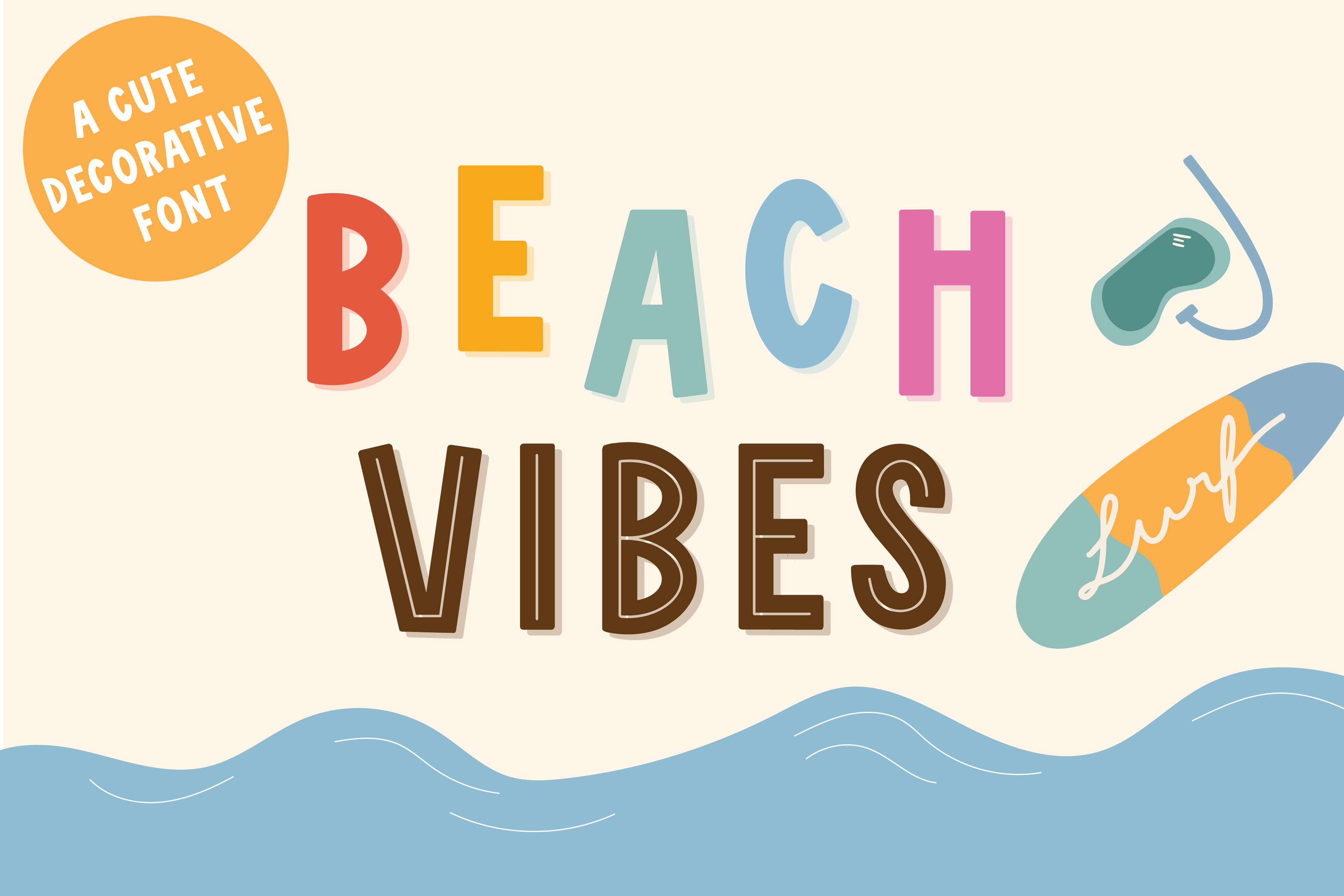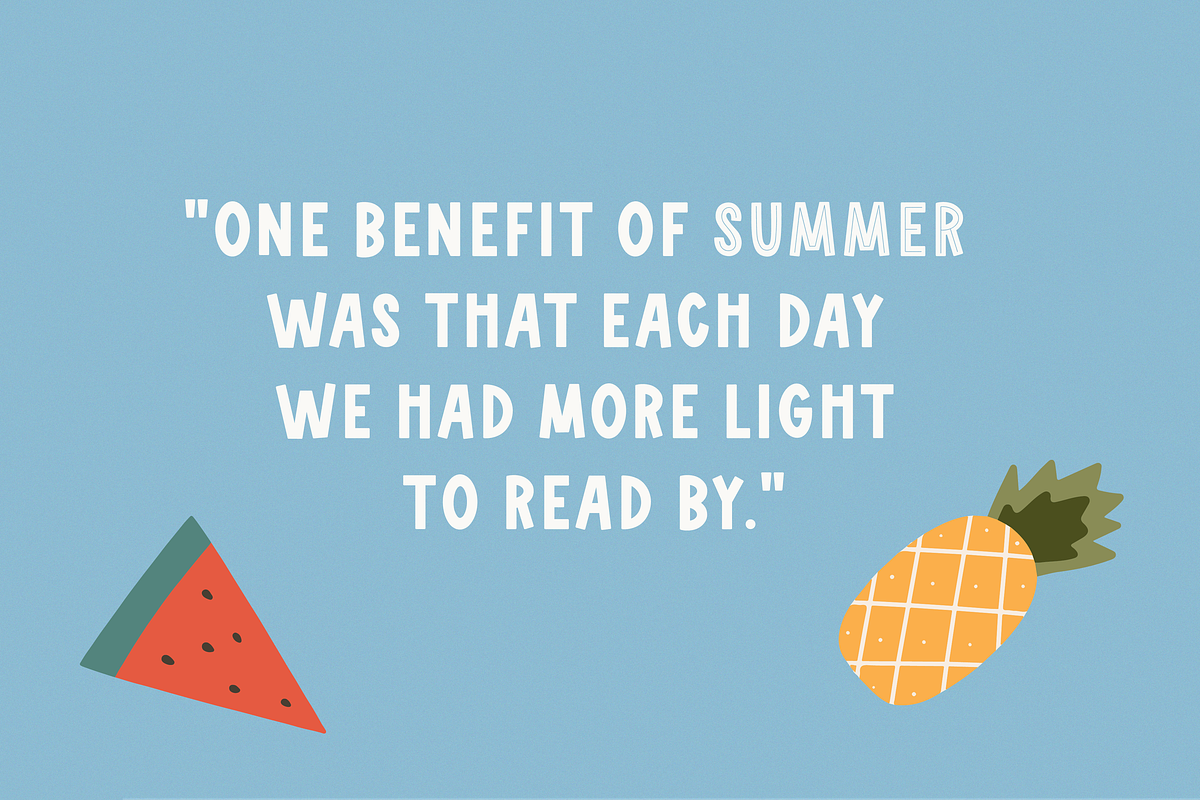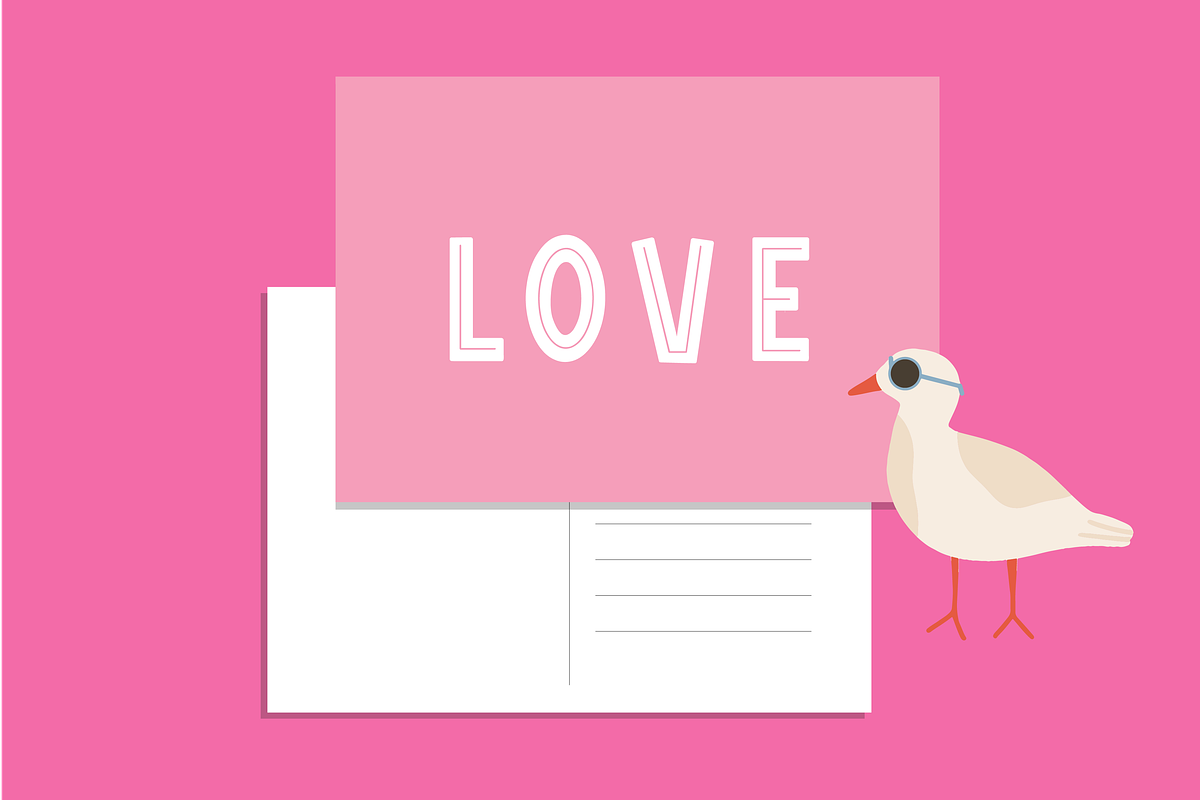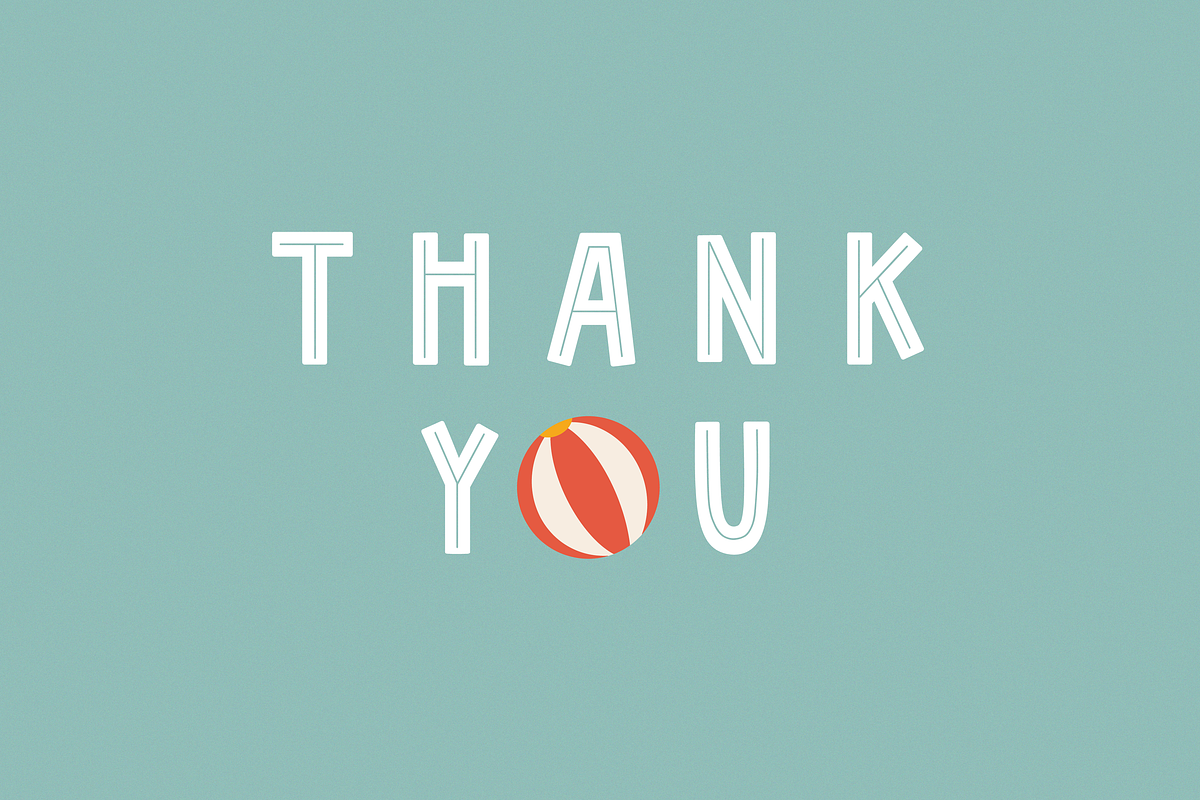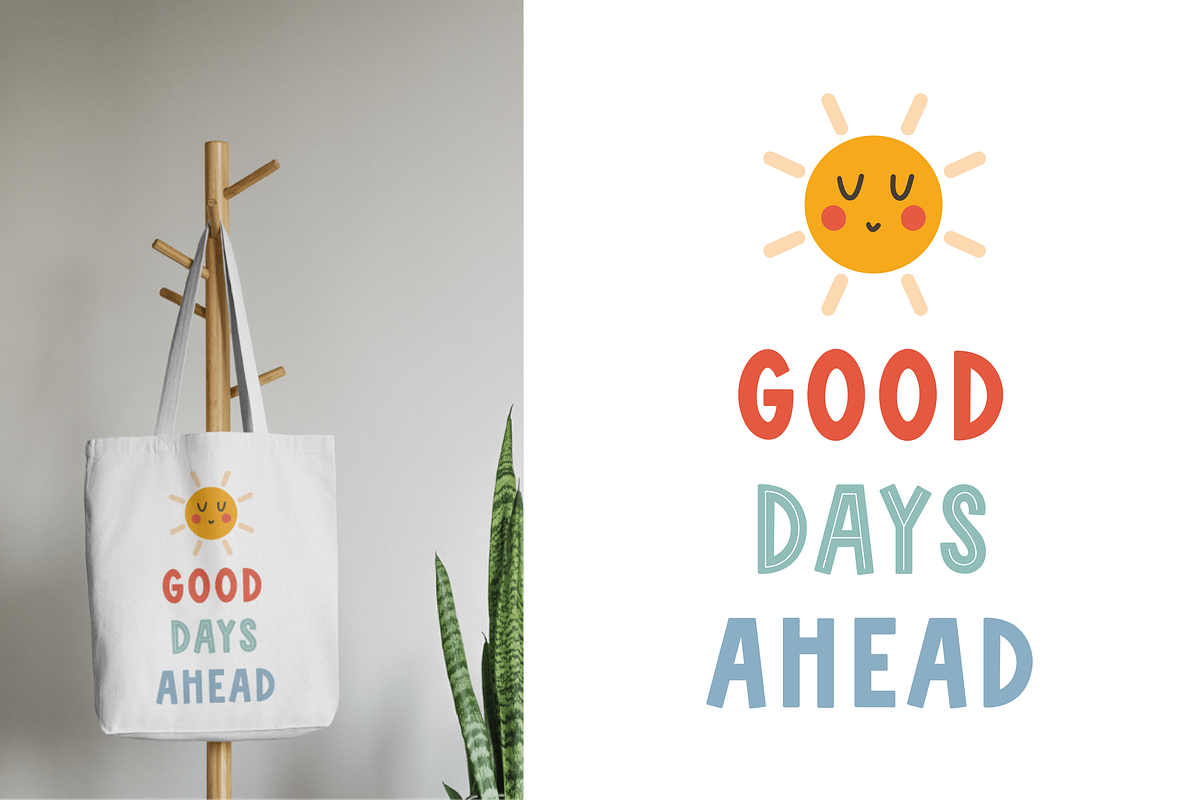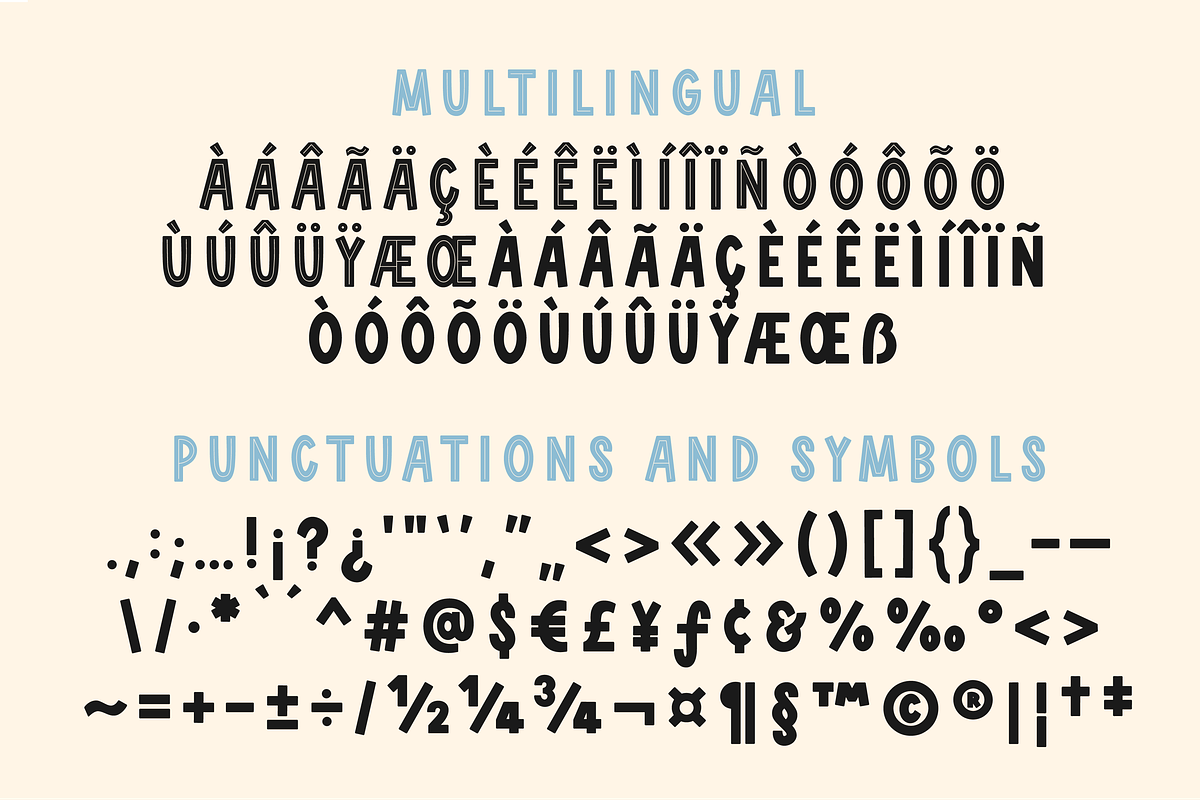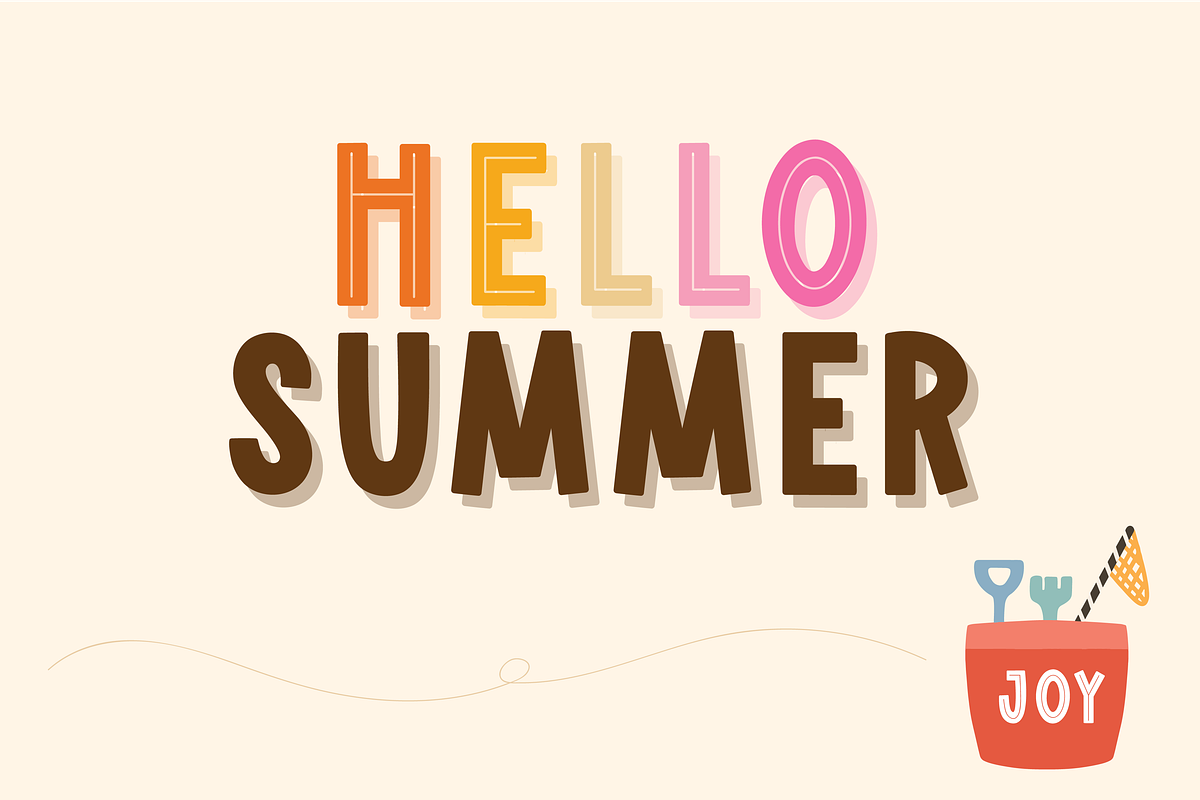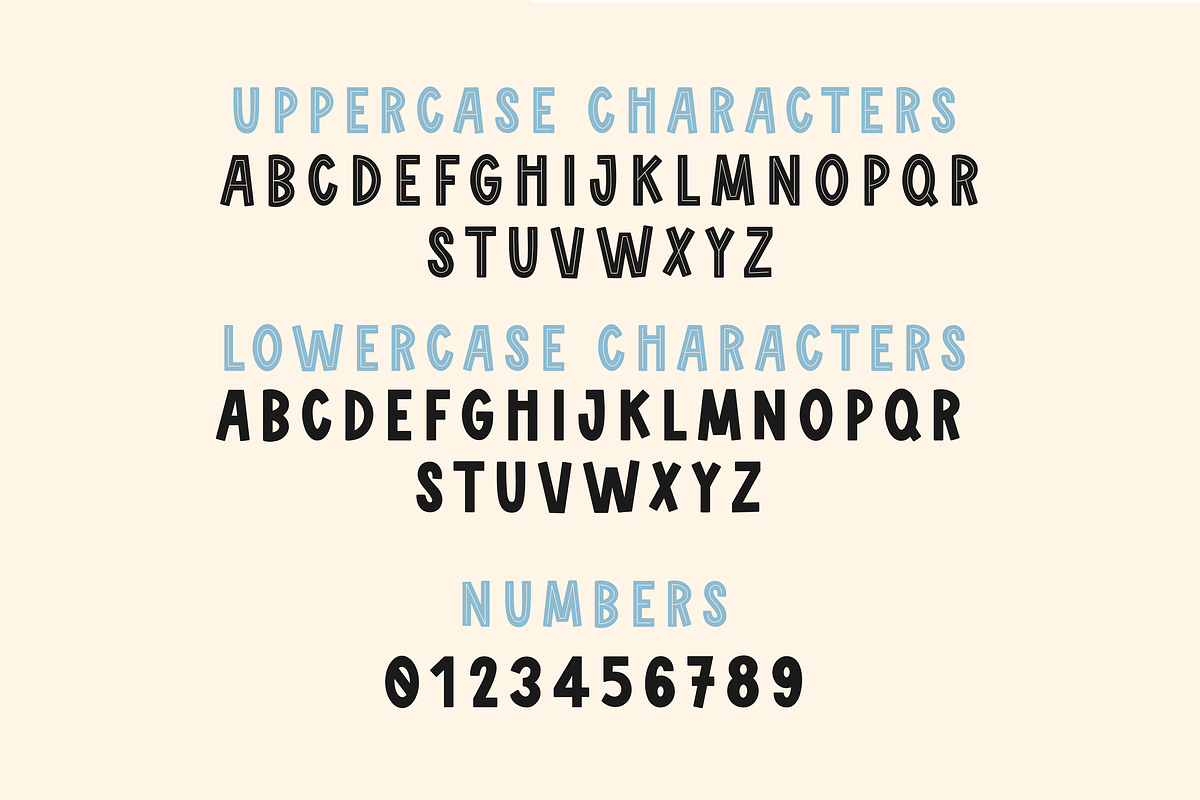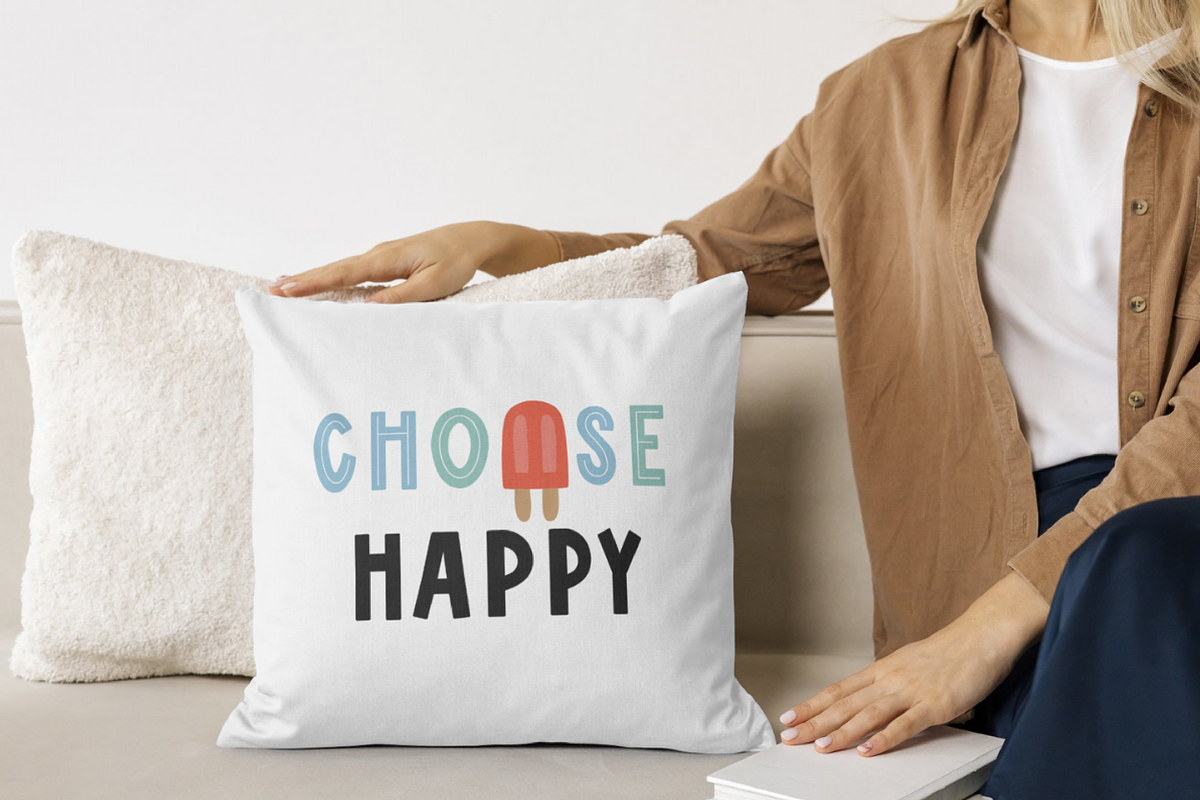
Beach vibes Font
BEACH VIBES is a cute decorative font. Perfect for summer projects, shirts, lively designs, invitation cards, mugs, stickers, playful quotes, creating posters, logos, greeting cards, packaging, decorating the illustration and so much more!
Beach vibes Font Features:
- Extended punctuation.
- Multilingual Characters support.